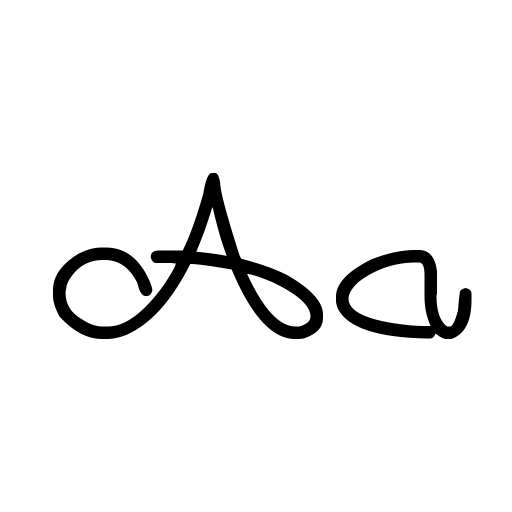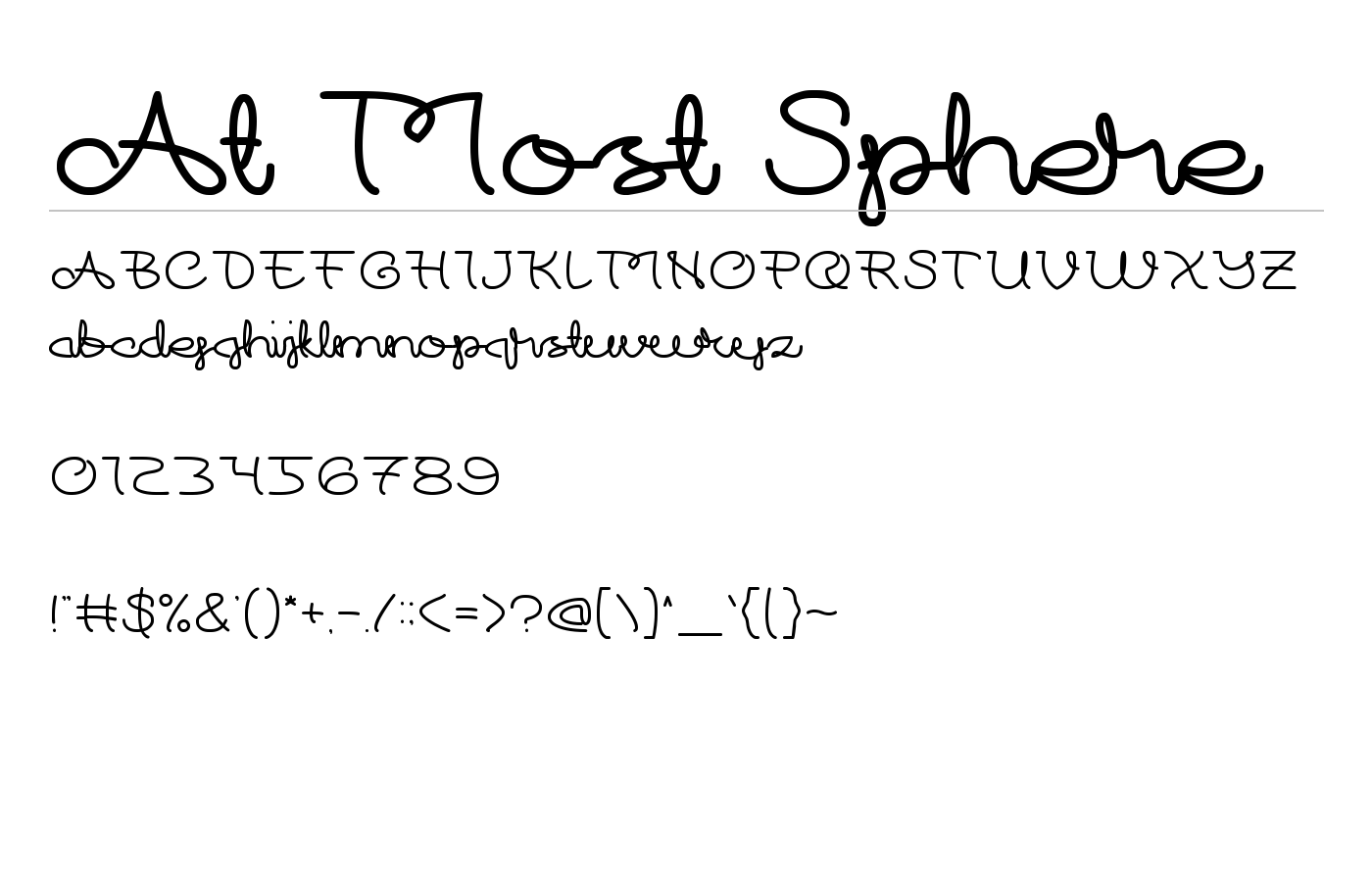
At Most Sphere is a delicate, handwritten script font featuring slender, flowing lines with a playful yet refined personality. Its light weight and consistent stroke width give it an airy, casual feel, making it perfect for creative projects that seek a personal touch, such as invitations, branding for artistic ventures, or whimsical editorial headlines. This font’s charming loops and soft curves bring a sense of friendliness and approachability while maintaining elegance.
At Most Sphere Font
About At Most Sphere Font